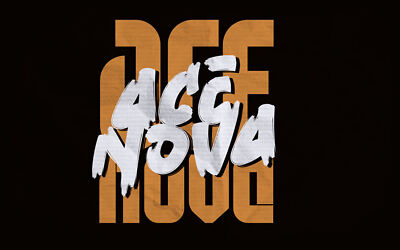
Silver Bullet is a combination of brush painted script and strong sans serif. This versatility means that this typeface can be used in a wide variety of applications from posters to logos- the only limit is your imagination!